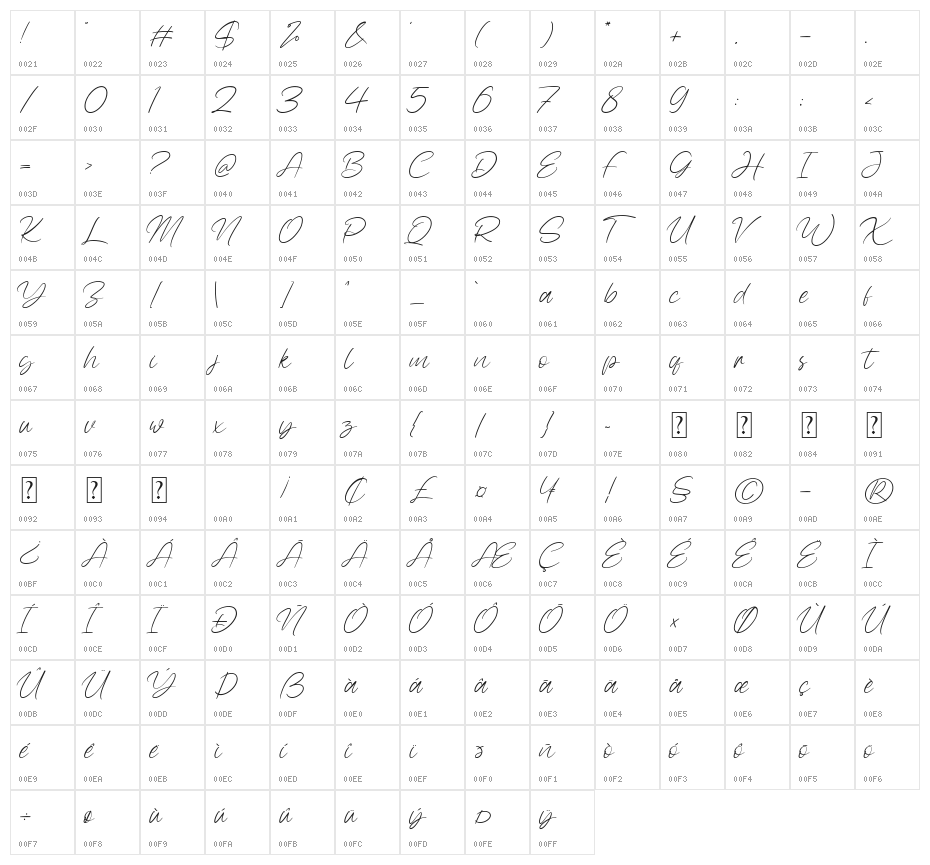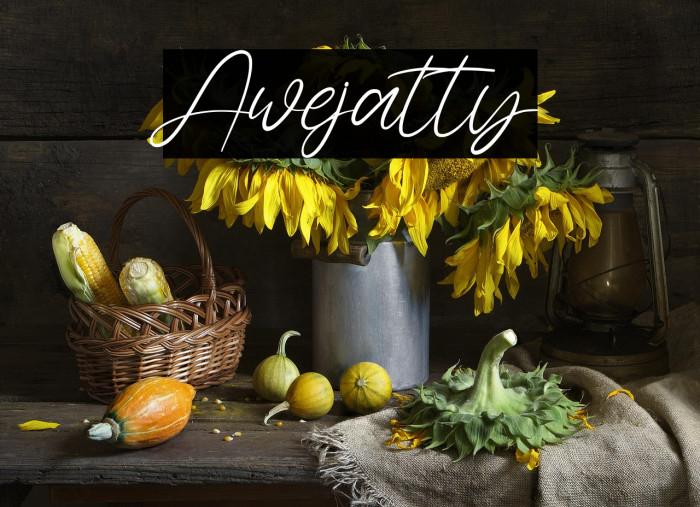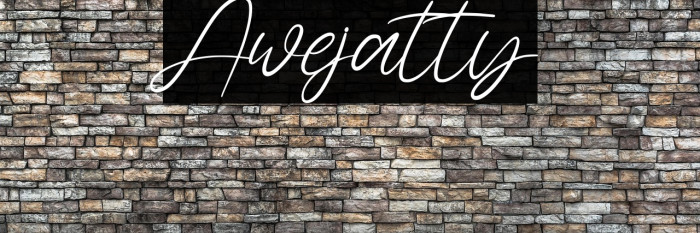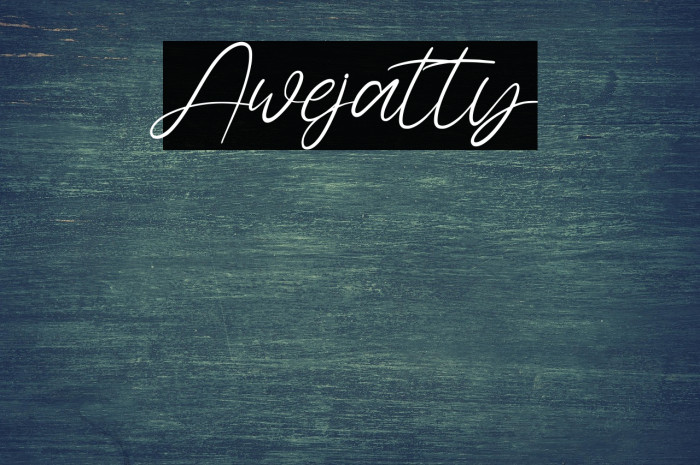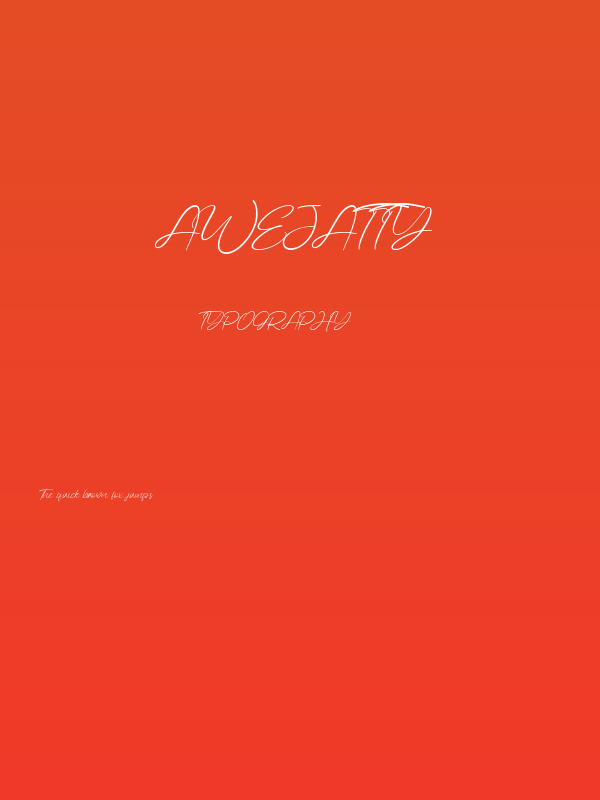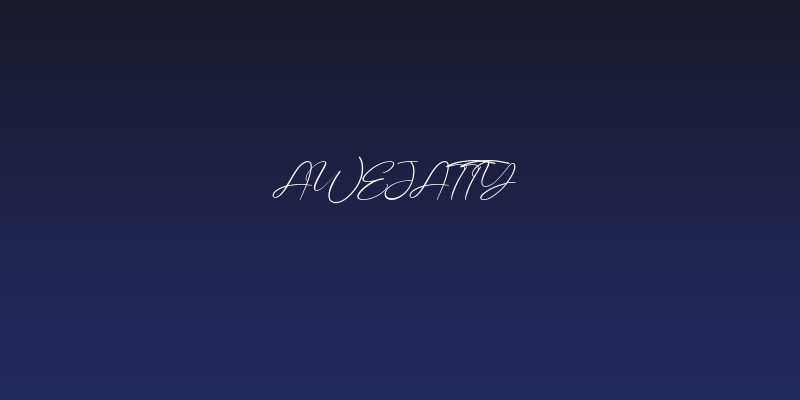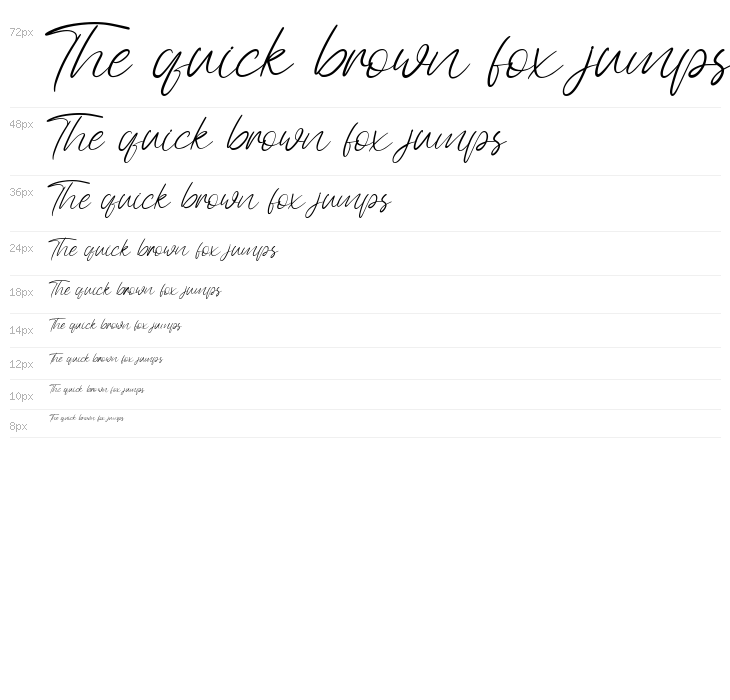
Awejatty Font
Awejatty Description
A flowing, elegant script font with a handwritten style, featuring smooth, connected strokes and a casual yet sophisticated appearance.
| Use Case | Logos, Invitations, Greeting cards |
| Proposed Projects | Invitations, greeting cards, branding, and logos. |